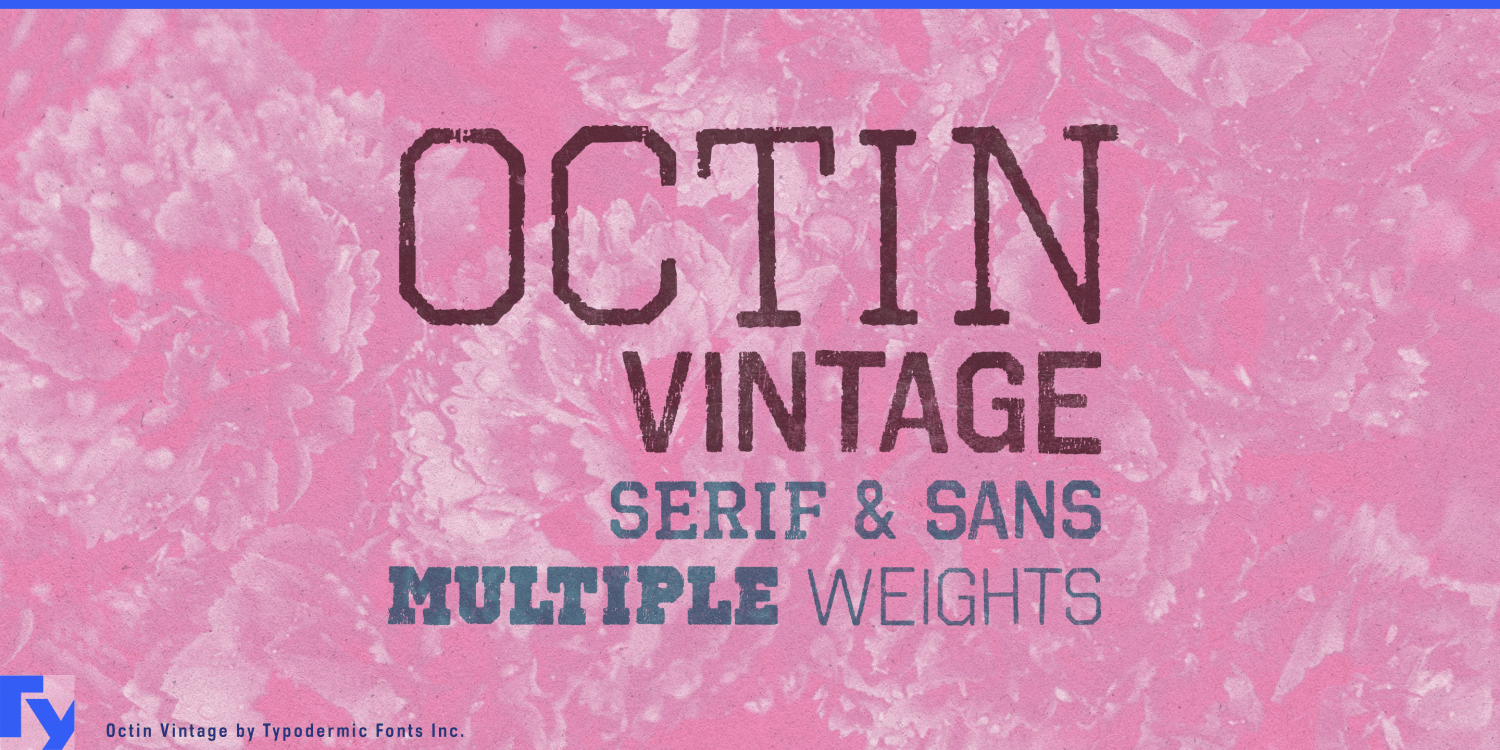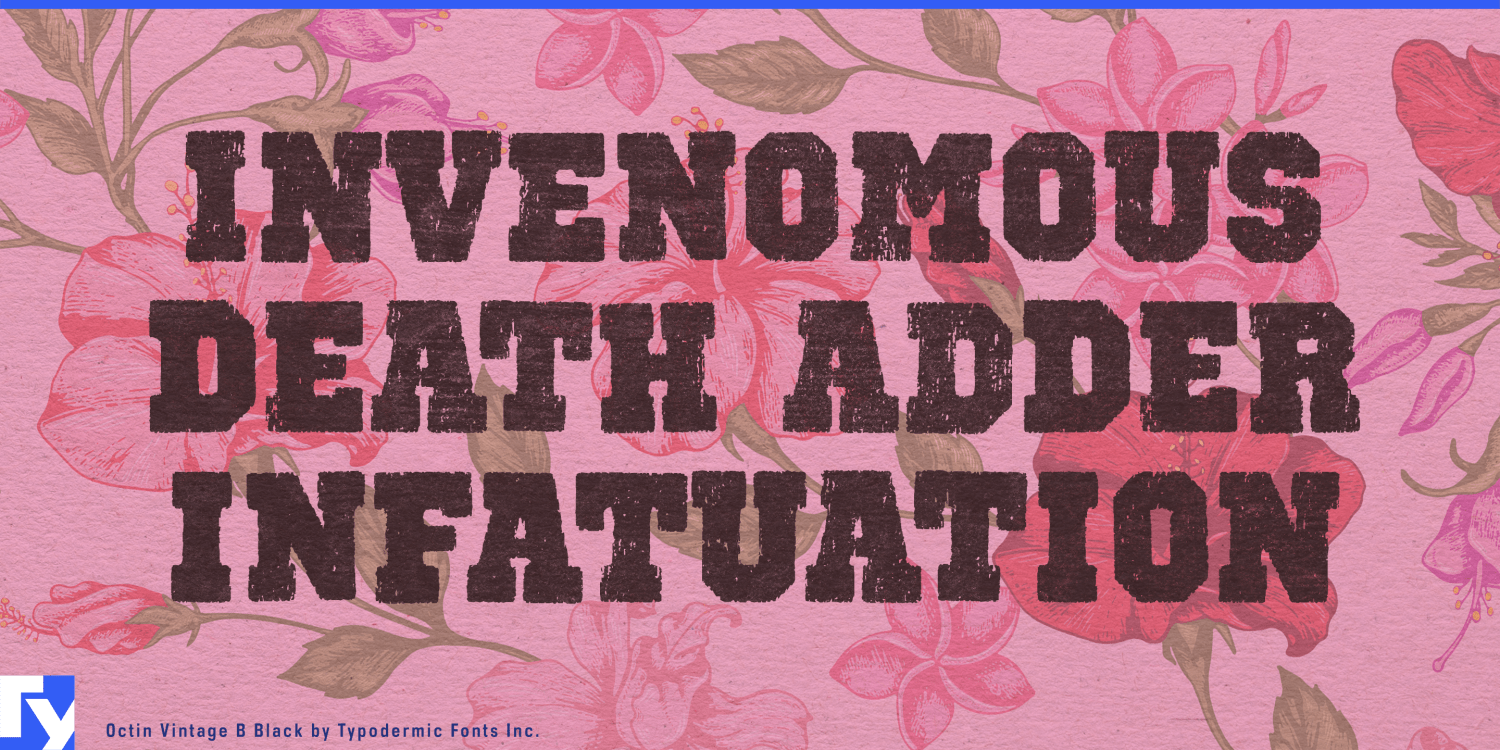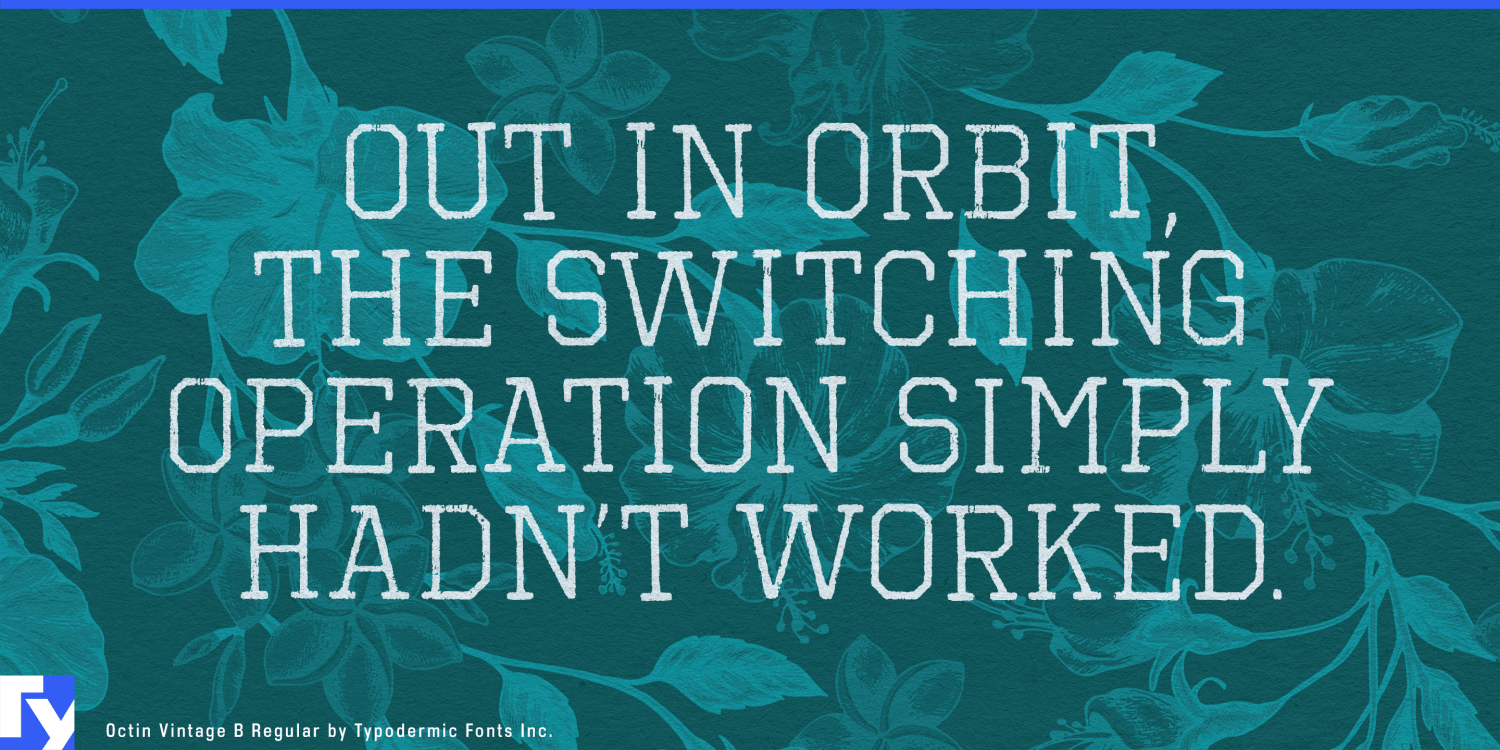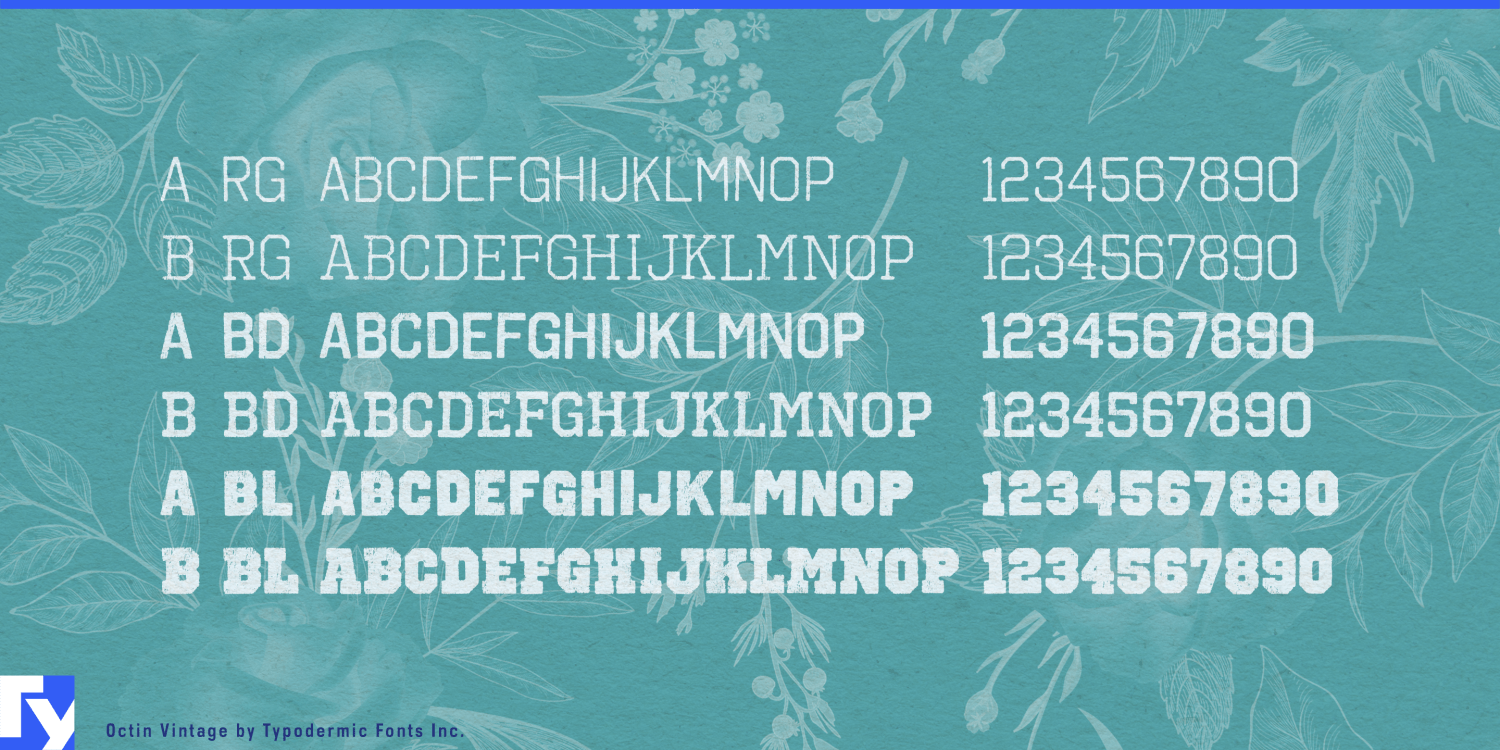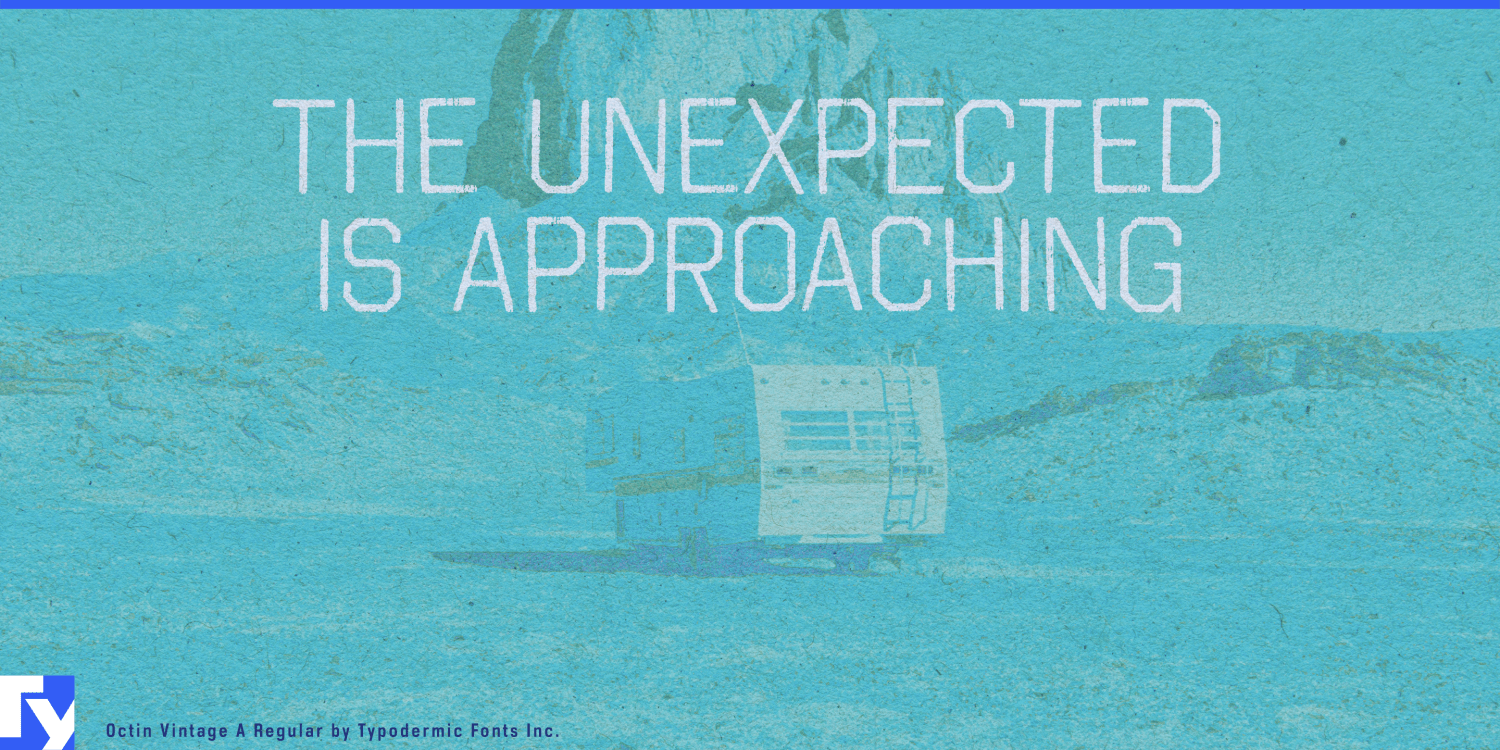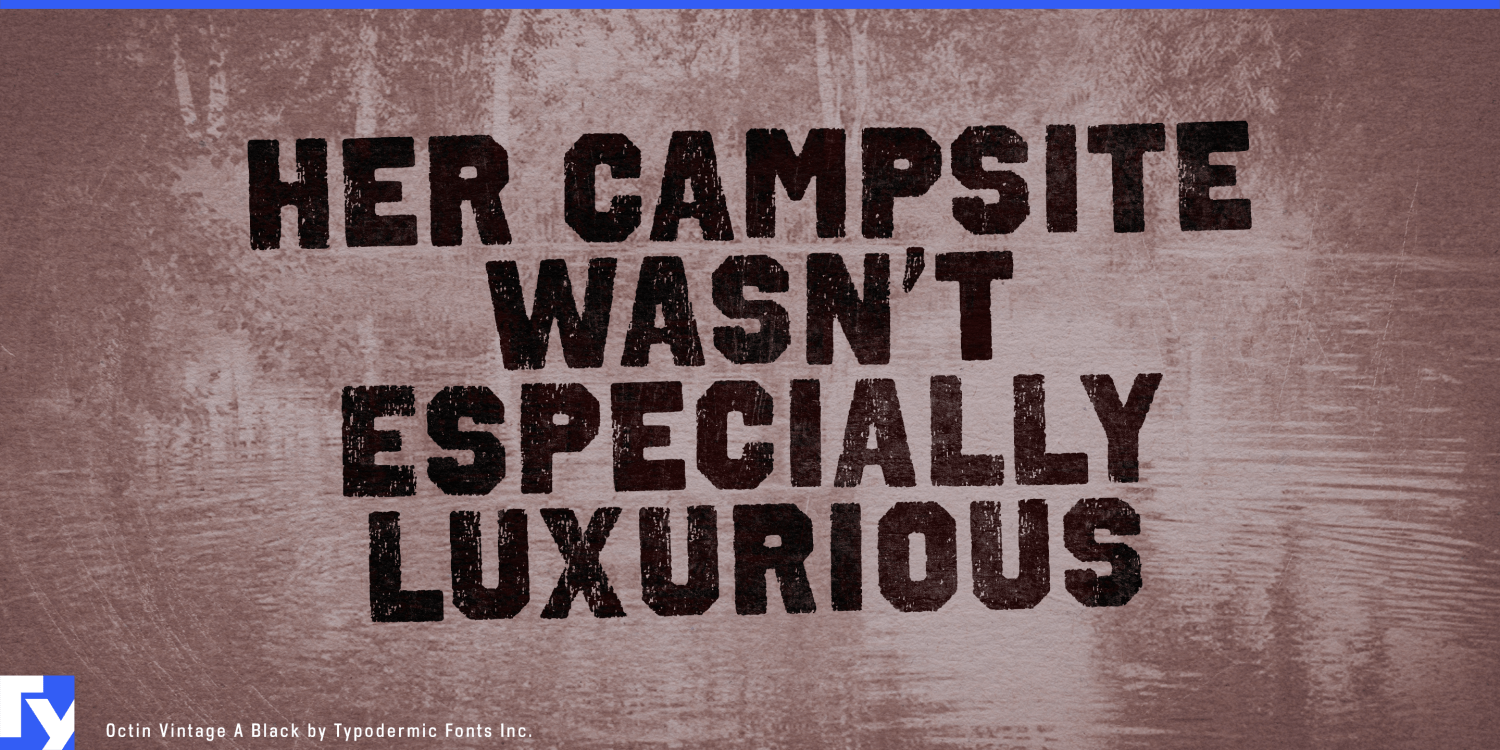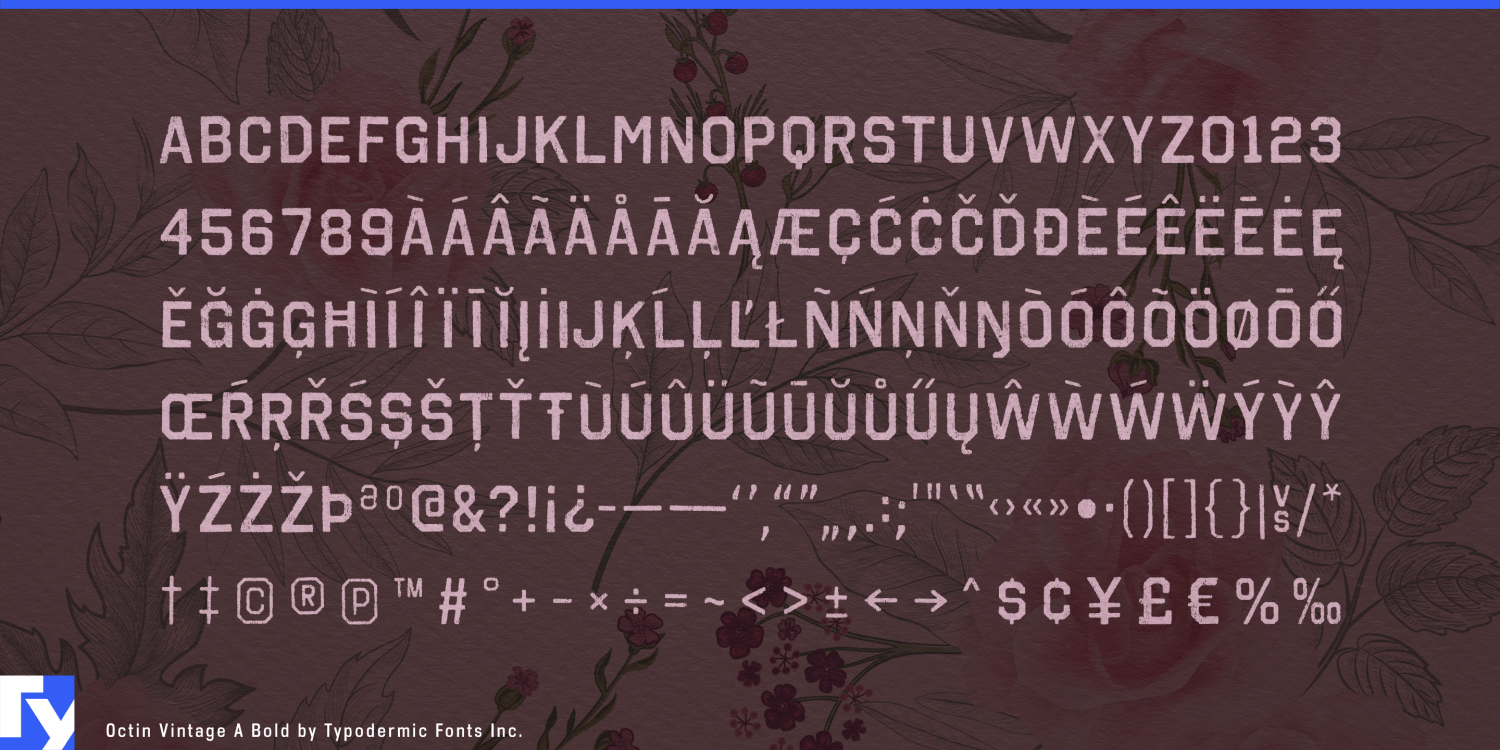
Octin Vintage
The history may be real, but the merchandise is new. Teams, leagues and sports properties may have decades of photographs, championship seasons and retired graphics to draw from, yet every anniversary shirt, commemorative display and archive-inspired campaign still has to be designed today. Octin Vintage gives newly made athletic typography a surface that already feels worn in.
Its texture began with an actual scanned T-shirt, giving the distress a natural connection to apparel rather than an abstract layer of digital grunge. Six all-caps styles combine sans and serif constructions across Regular, Bold and Black, allowing a collection to shift between different athletic voices while retaining the same faded, handled surface.
Licensed heritage sports merchandise is a natural fit. Throwback team collections, anniversary capsules, historic championship apparel and archive-inspired supporter ranges need more than one distressed wordmark. City names, team names, championship years, divisions and slogans all have to work across shirts, hoodies, hats, bags and patches. Octin Vintage makes that wear repeatable across changing copy instead of requiring every piece to be distressed by hand.
Anniversary seasons create the same problem on a larger scale. A club marking 25, 50 or 100 years may need heritage typography across stadium screens, social campaigns, retail displays, commemorative programs and limited-edition merchandise. Octin Vintage can make new lettering sit more naturally beside archival photography and old uniforms without pretending to reproduce one exact historical typeface.
Stadium museums, hall-of-fame areas, championship corridors and club-history exhibitions can use the family for era headings, player names, championship years and exhibit titles. Historic motorsport programs, classic-racing events and licensed racing apparel offer a related territory where new graphics need to coexist with archive imagery.
Sports-fashion collaborations can use the same principle when a current apparel or footwear brand works with a team, league or historic sports property. Newly created collection names and secondary typography can take on enough wear to sit comfortably beside archive logos and period material.
Octin Vintage belongs to a coordinated six-family series. Octin College handles non-athletic academic identity; Octin Sports carries the current team voice; Octin Prison represents confinement and institutional control; Octin Stencil handles tactical and operational display systems; and Octin Spraypaint supplies the look of freshly applied intervention. Octin Vintage is the branch for history brought back into circulation: new typography that looks as though someone already wore it for years.